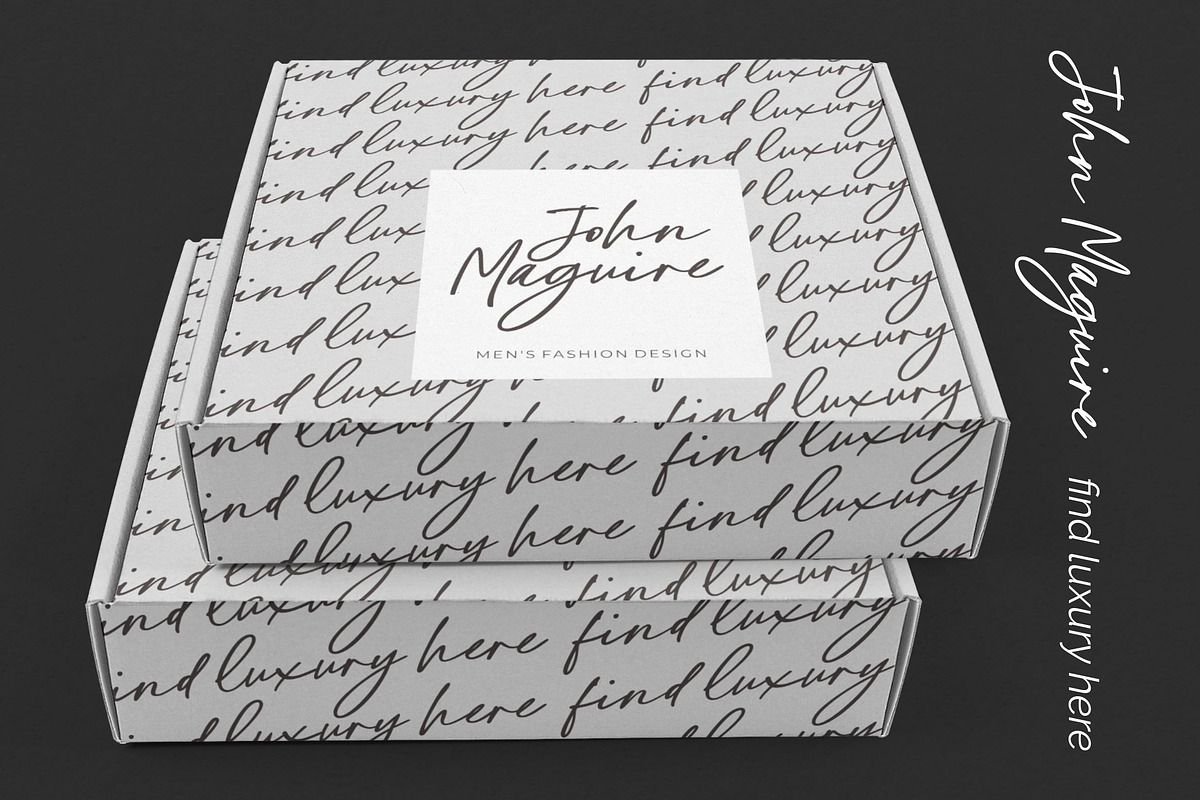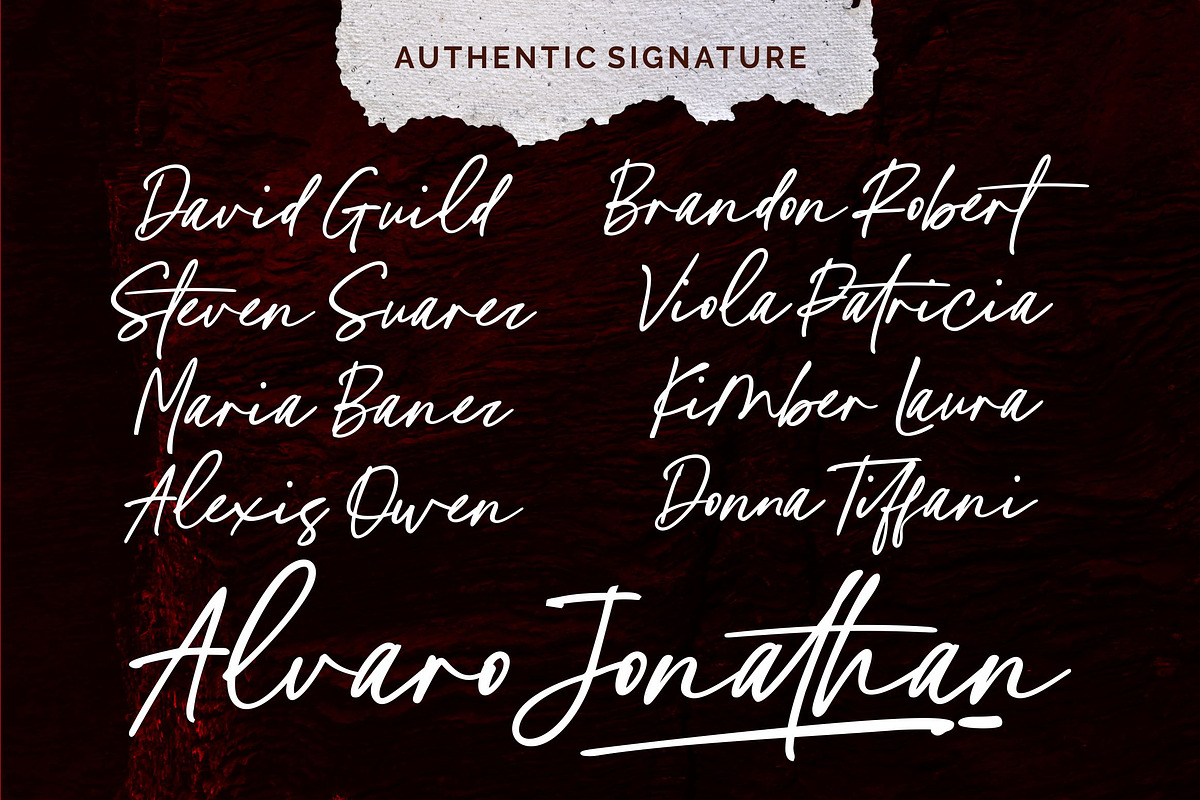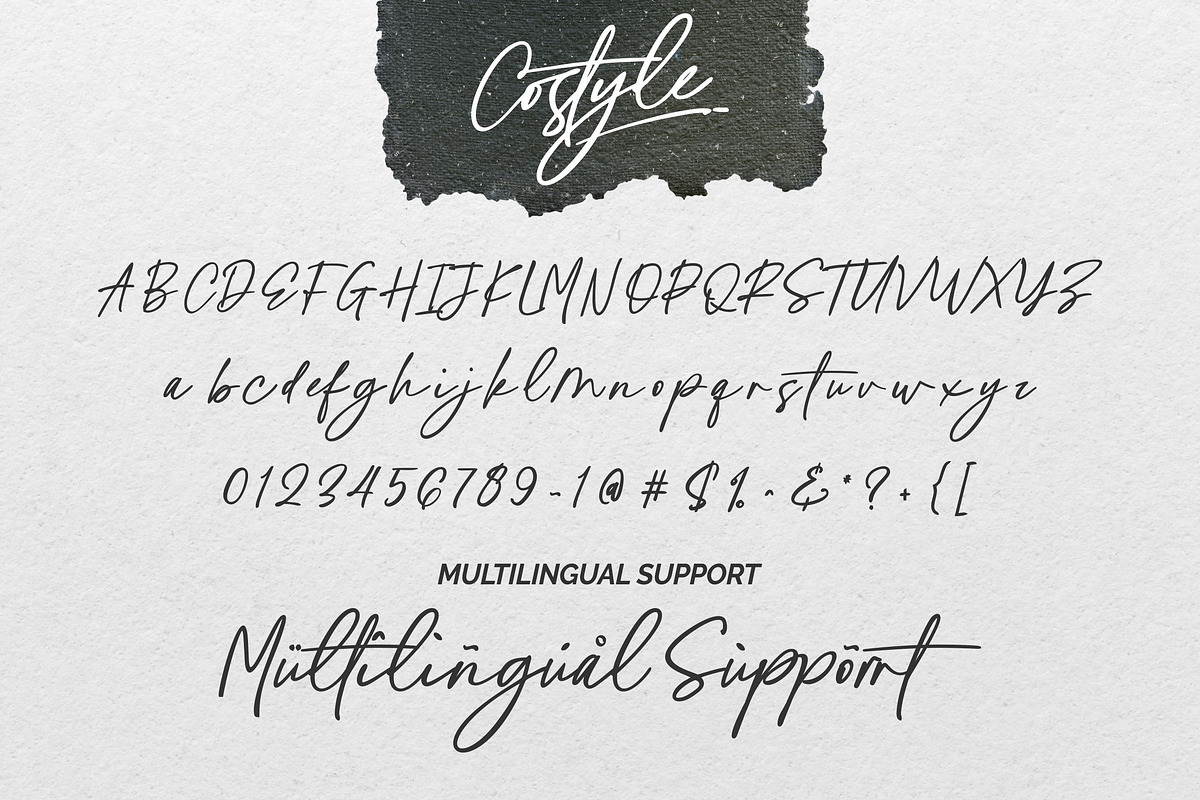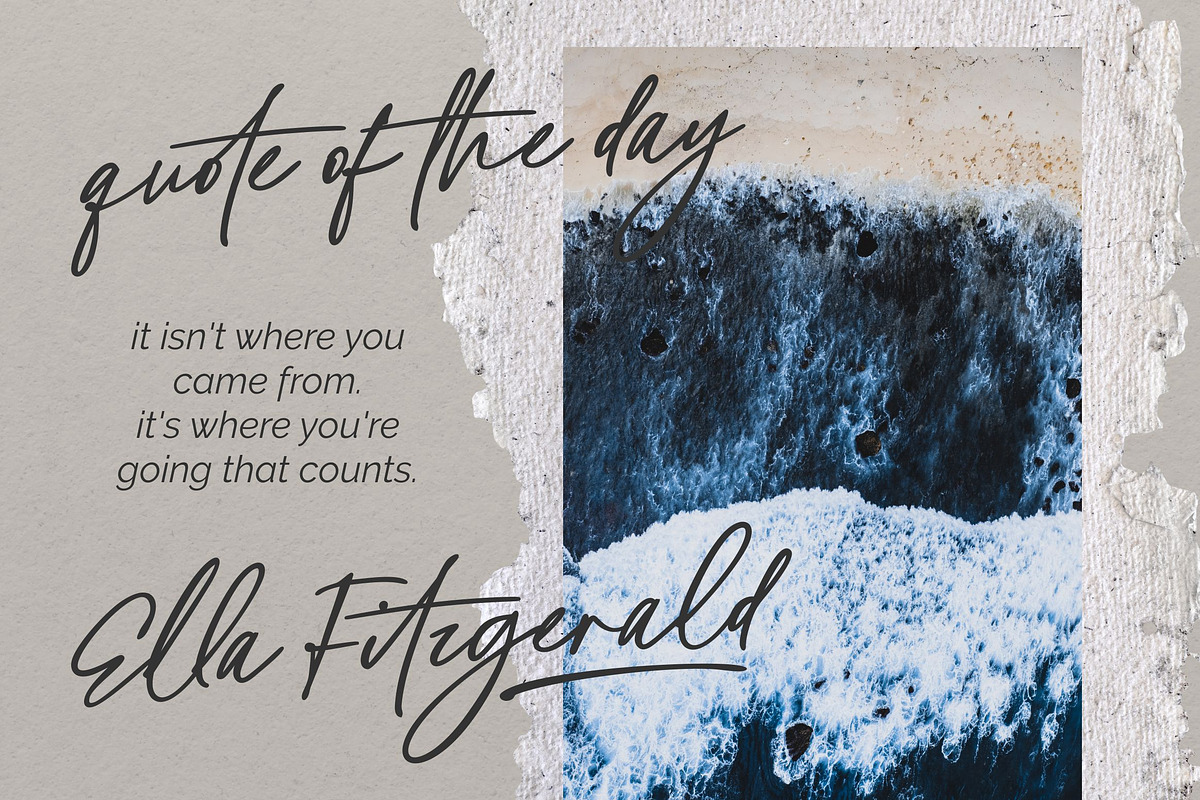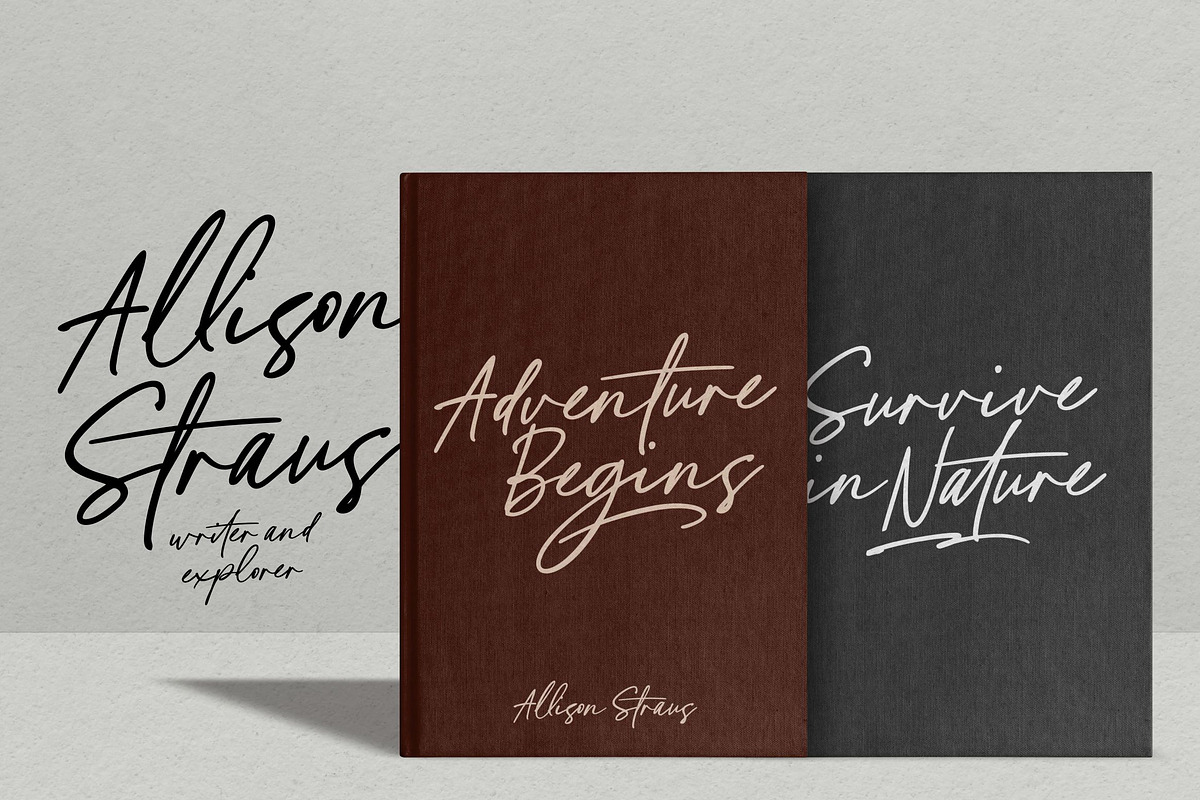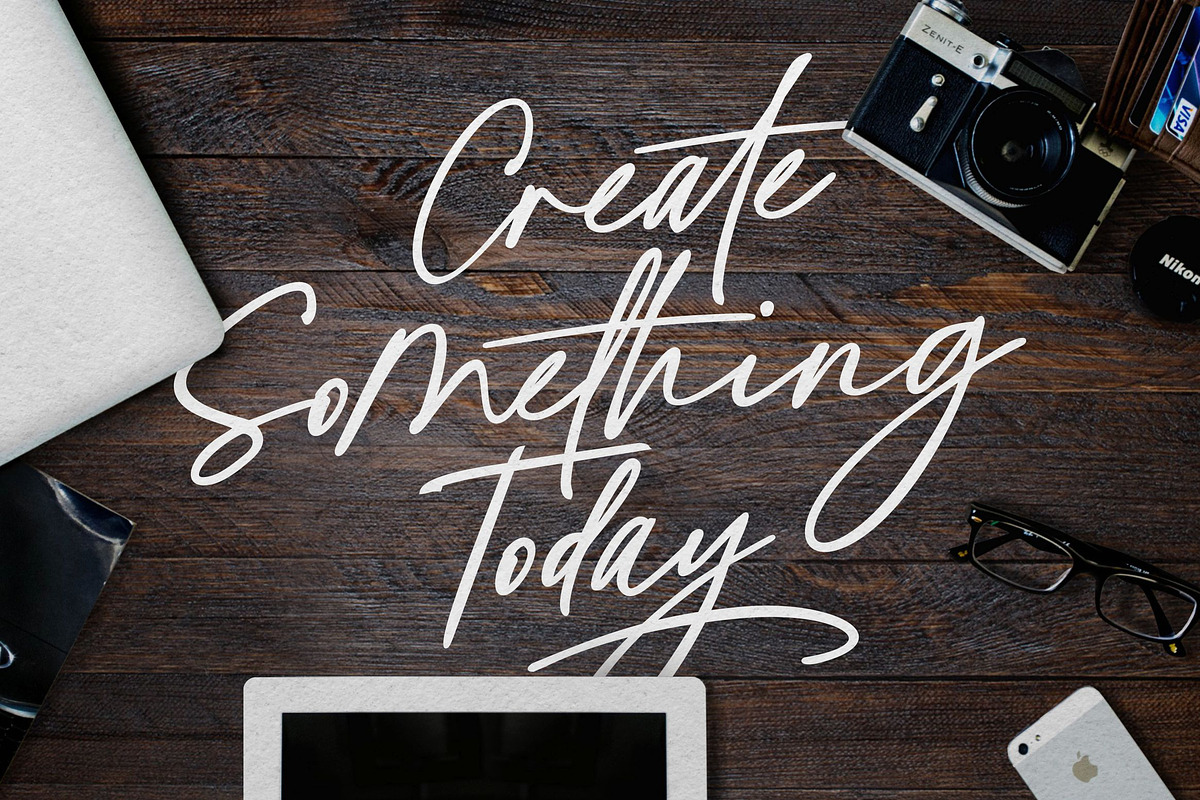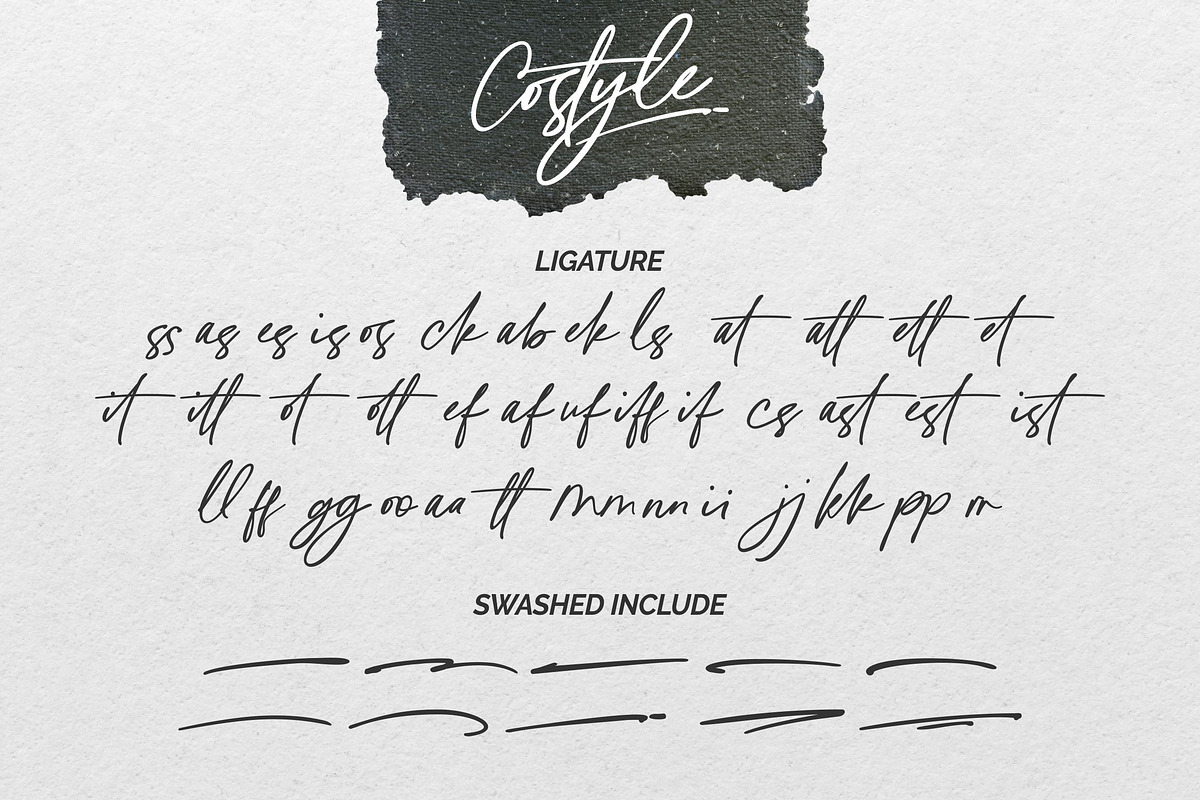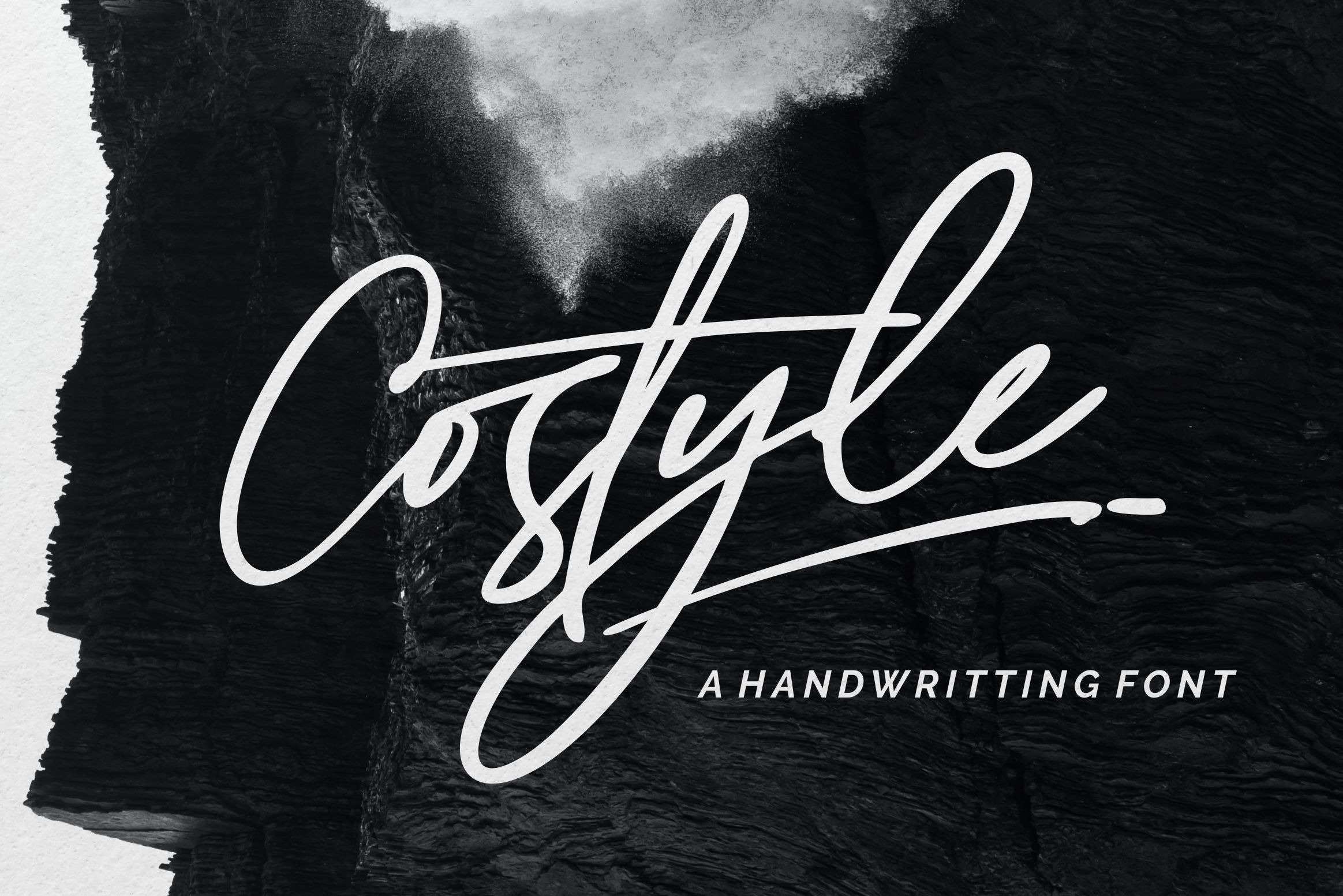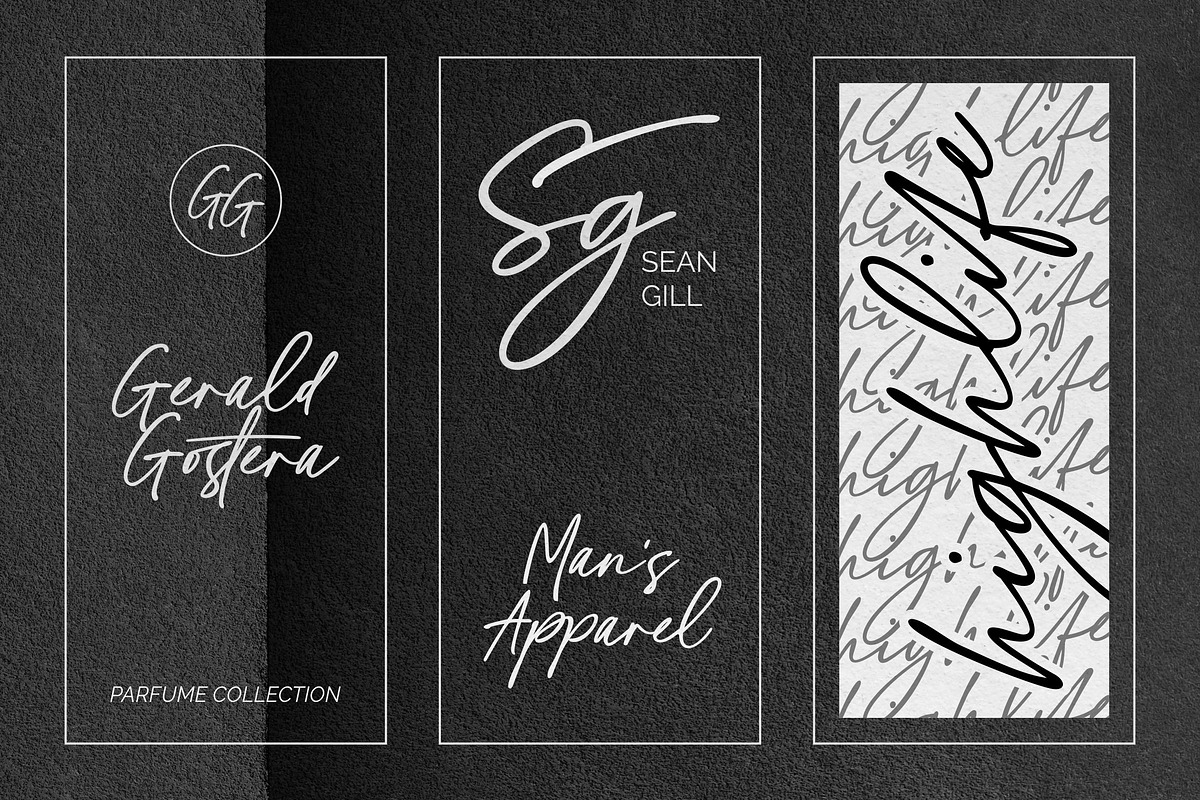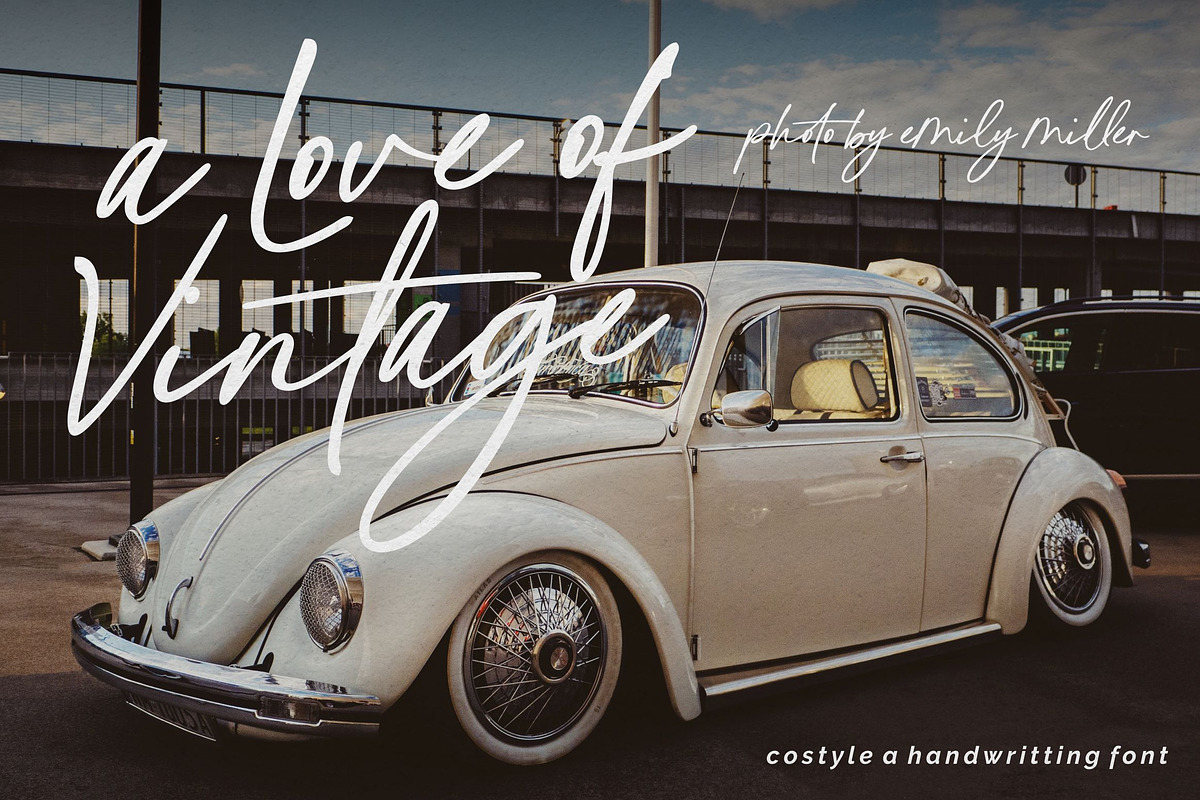
Costyle - A Handriwtten Font
Costyle is a handwritten font. Its unique flow and easy signature style makes it perfect to use for logos, signatures, quotes, badges, labels, packaging design, blog headlines or simply use it in your next design project.
multilingual support for the following languages : Cornish, Danish, Dutch, English, Estonian, Faroese, Filipino, Finnish, French, Galician, German, Icelandic, Indonesian, Irish, Italian, Norwegian Bokmål, Norwegian Nynorsk, Portuguese, Spanish, Swahili, Swedish, Swiss German.